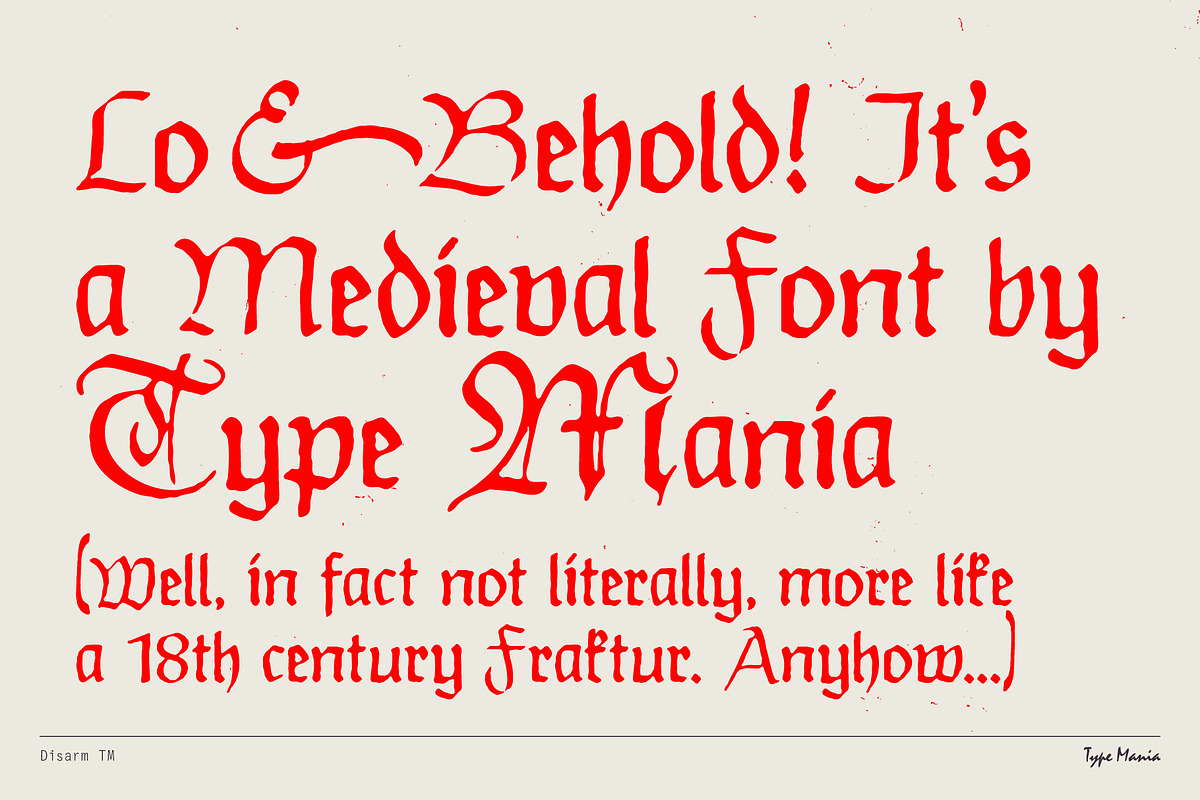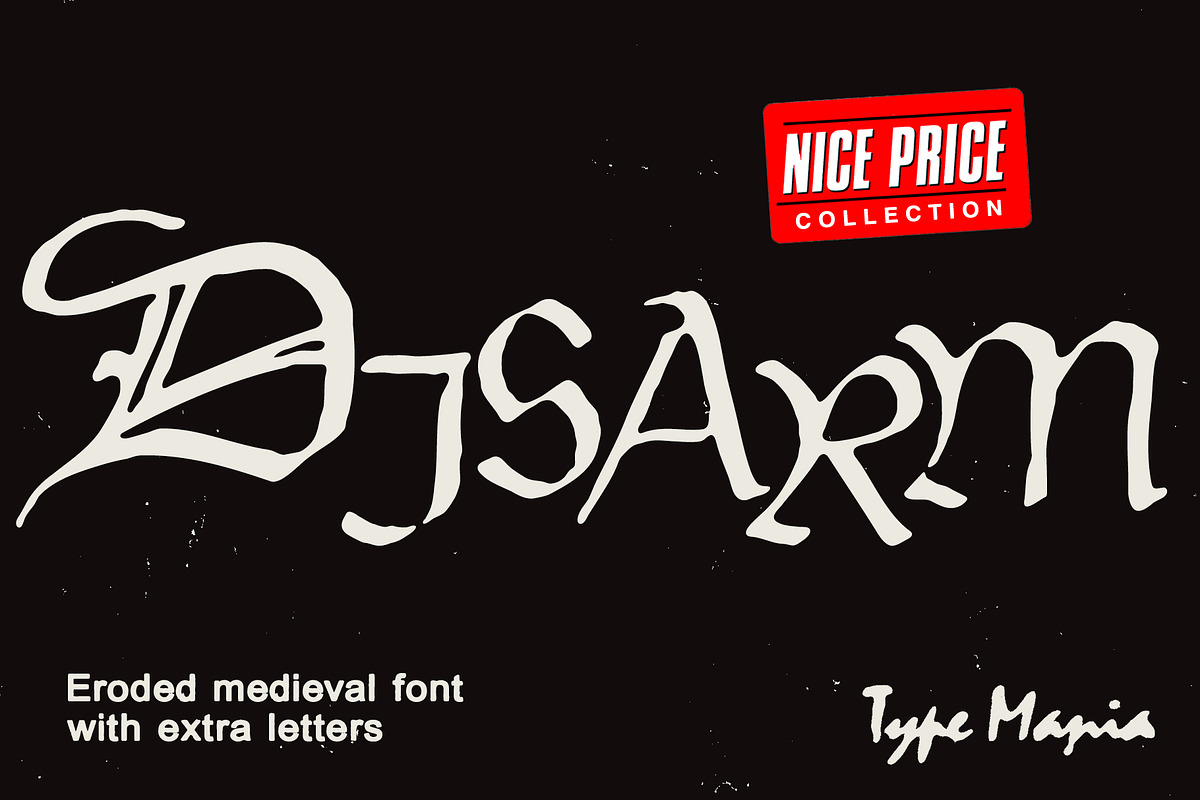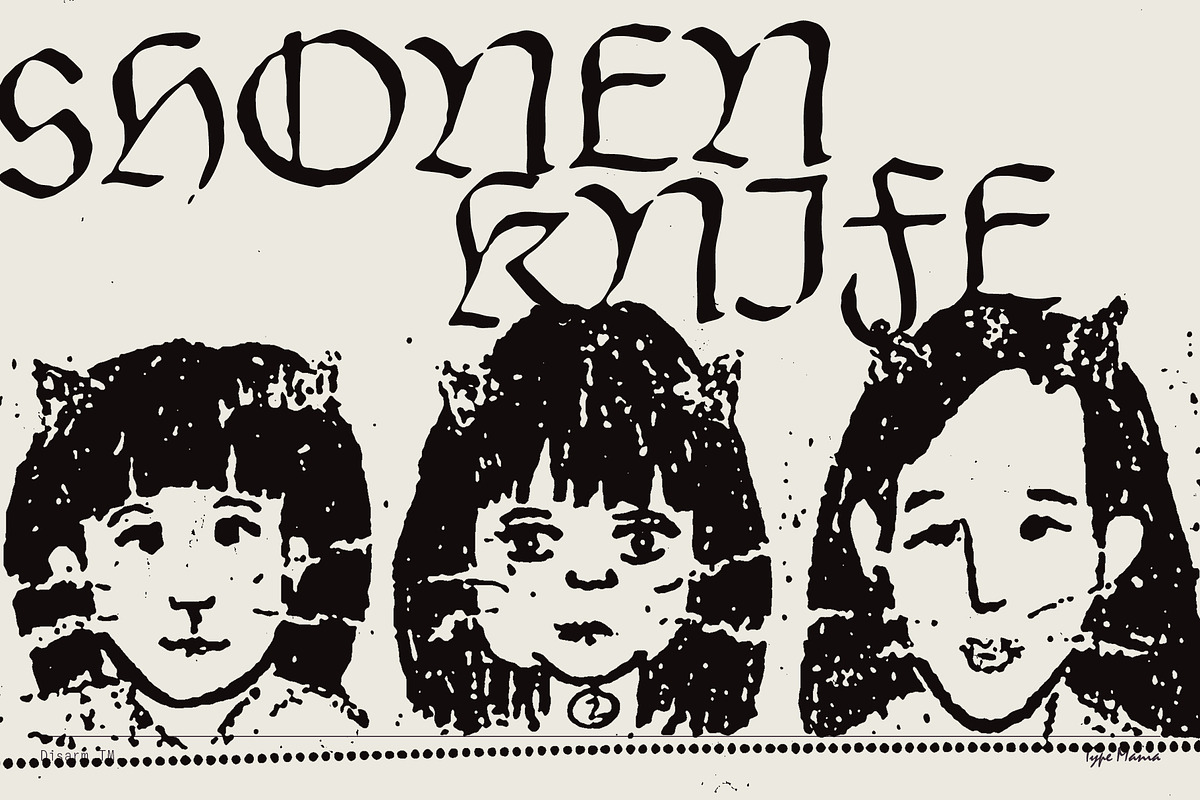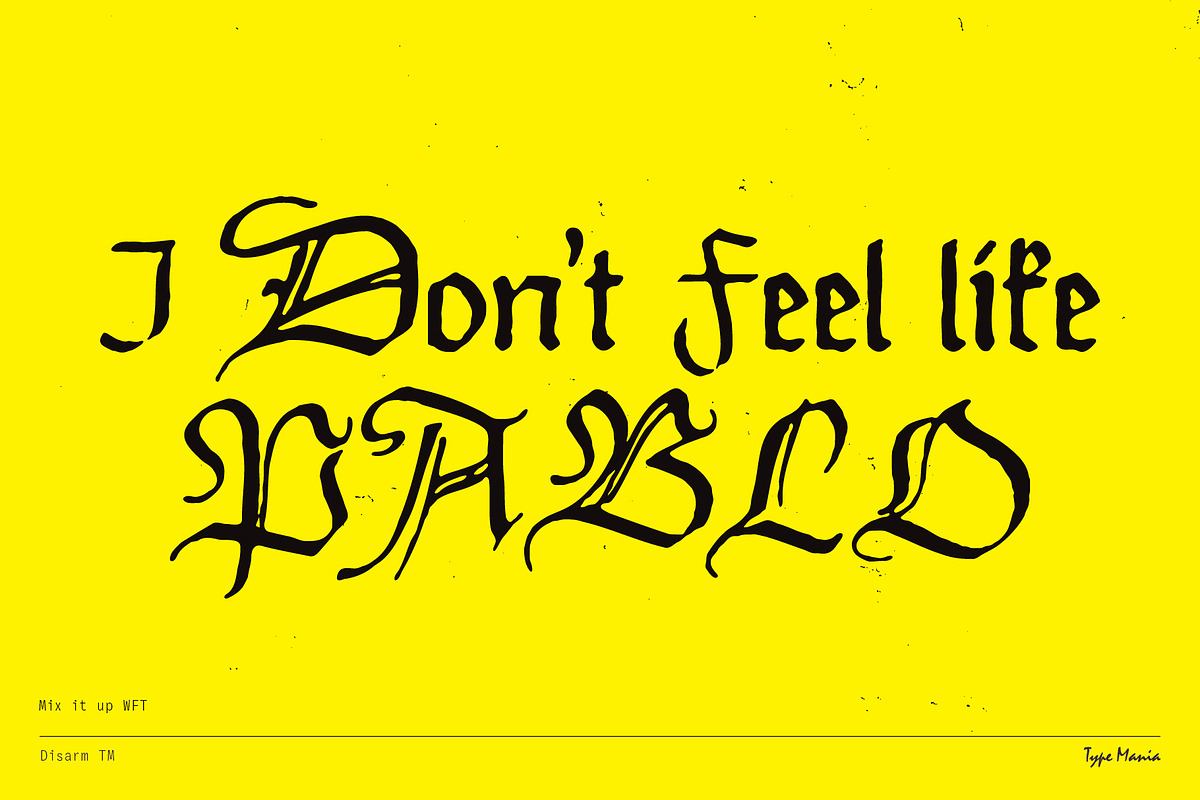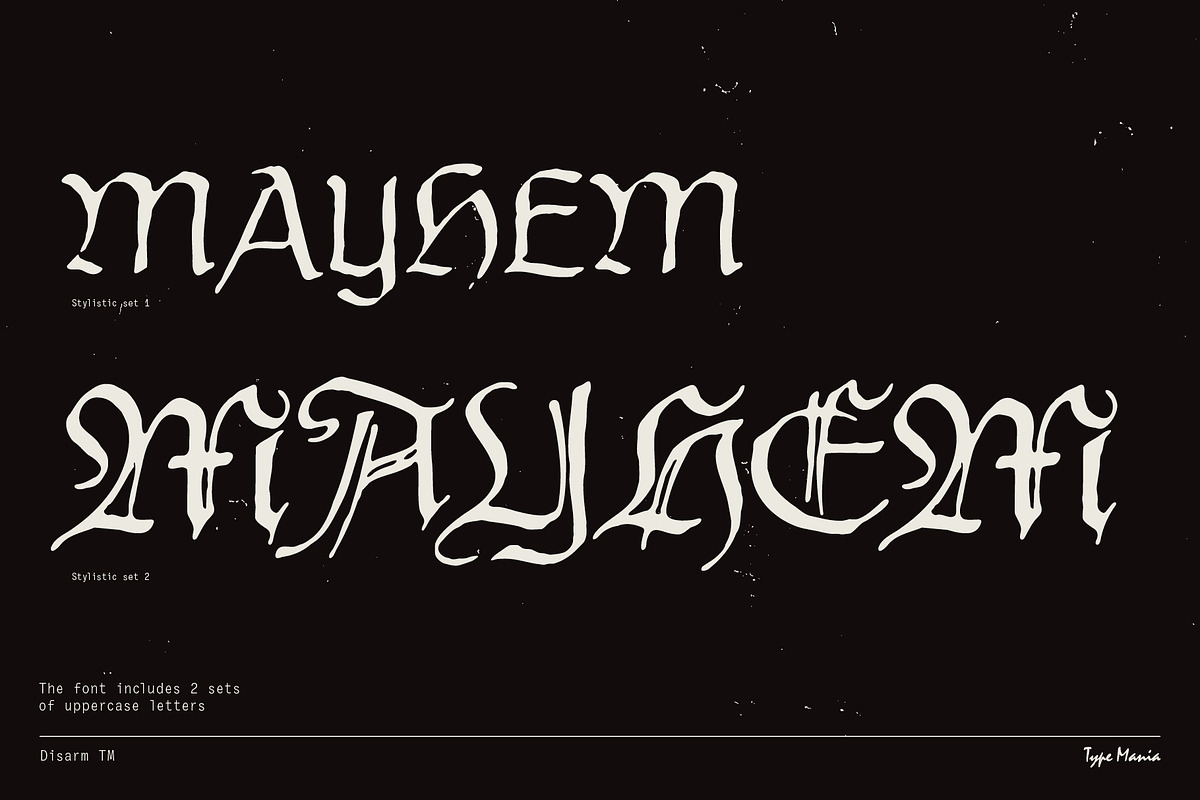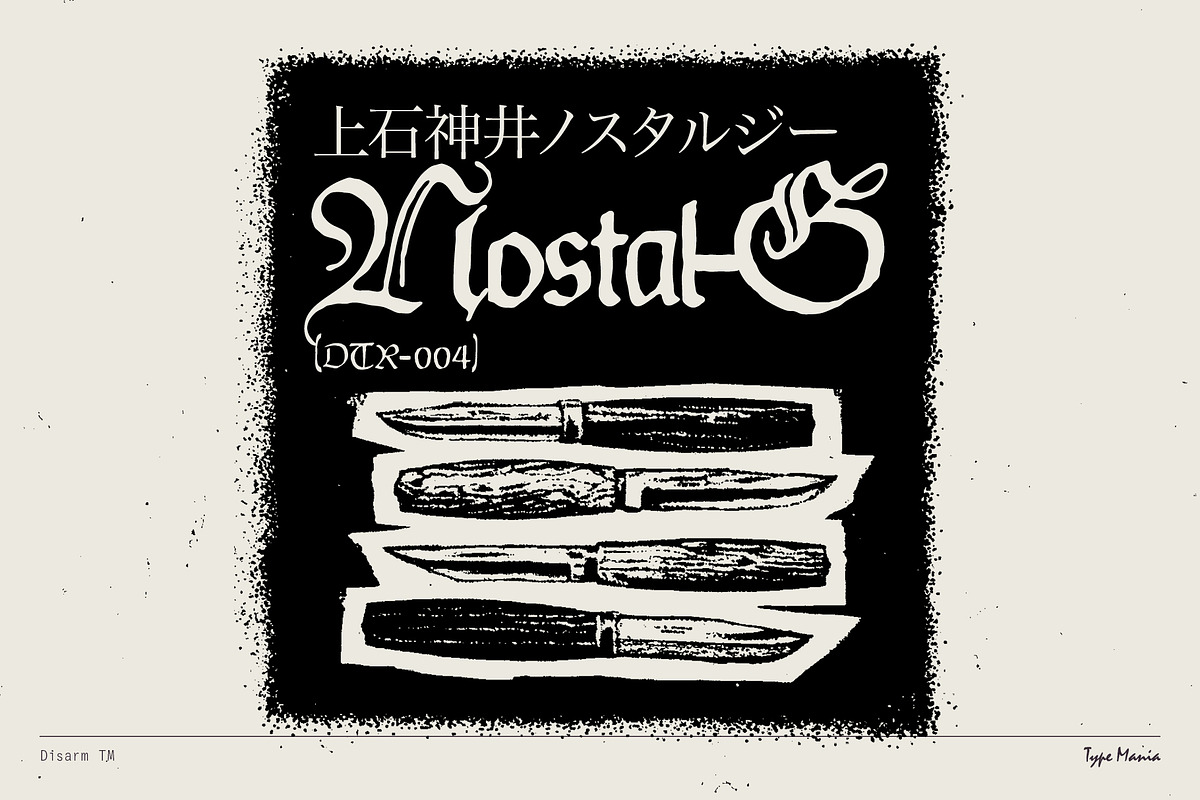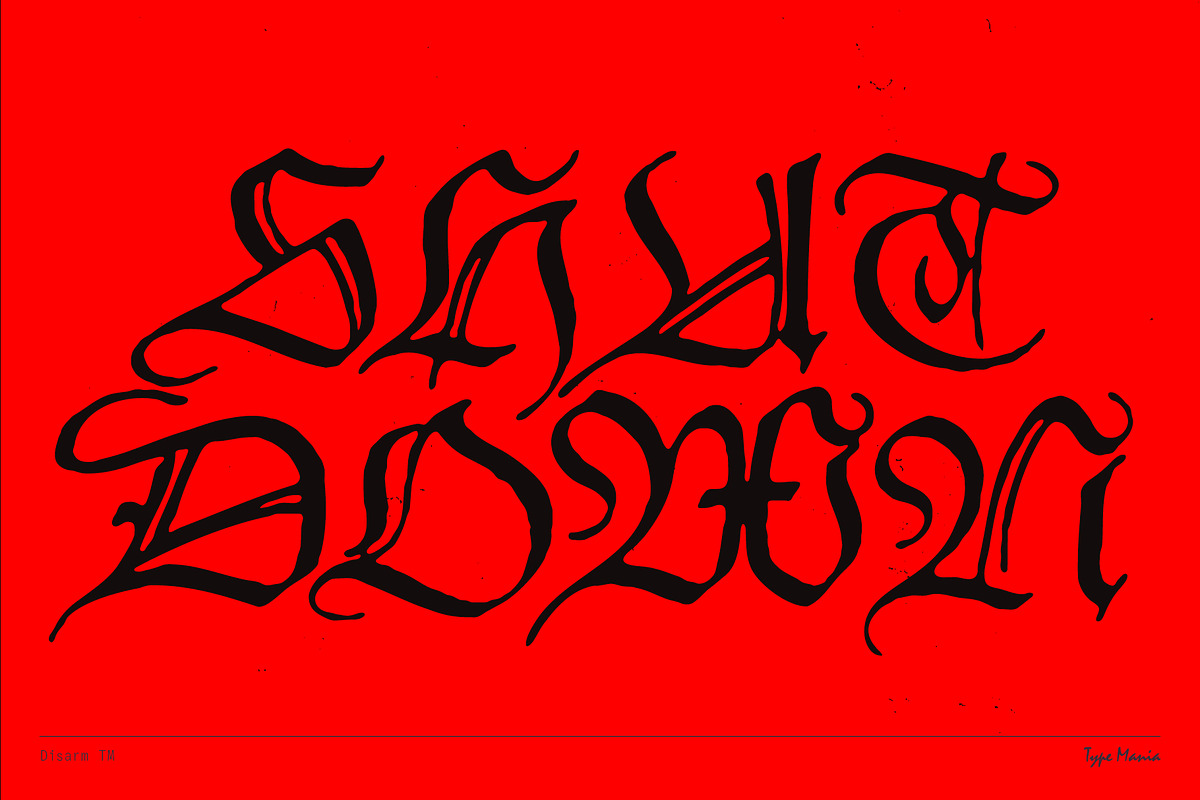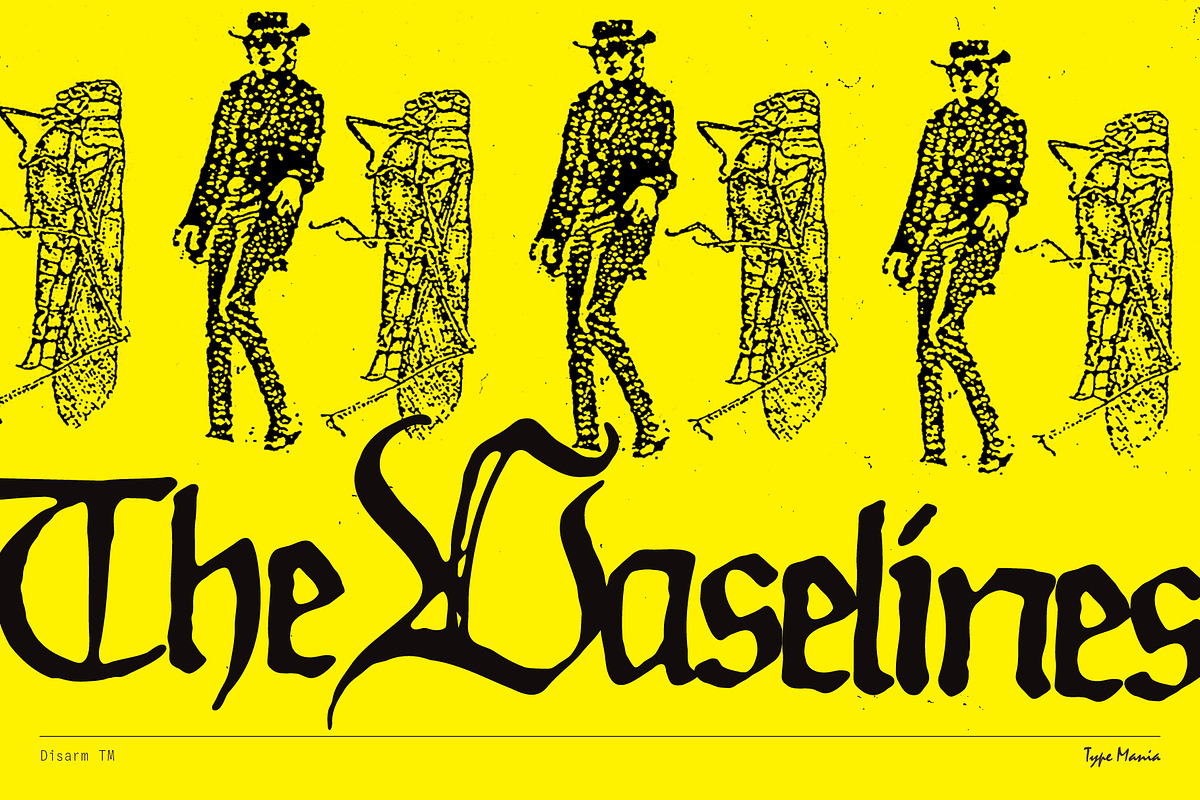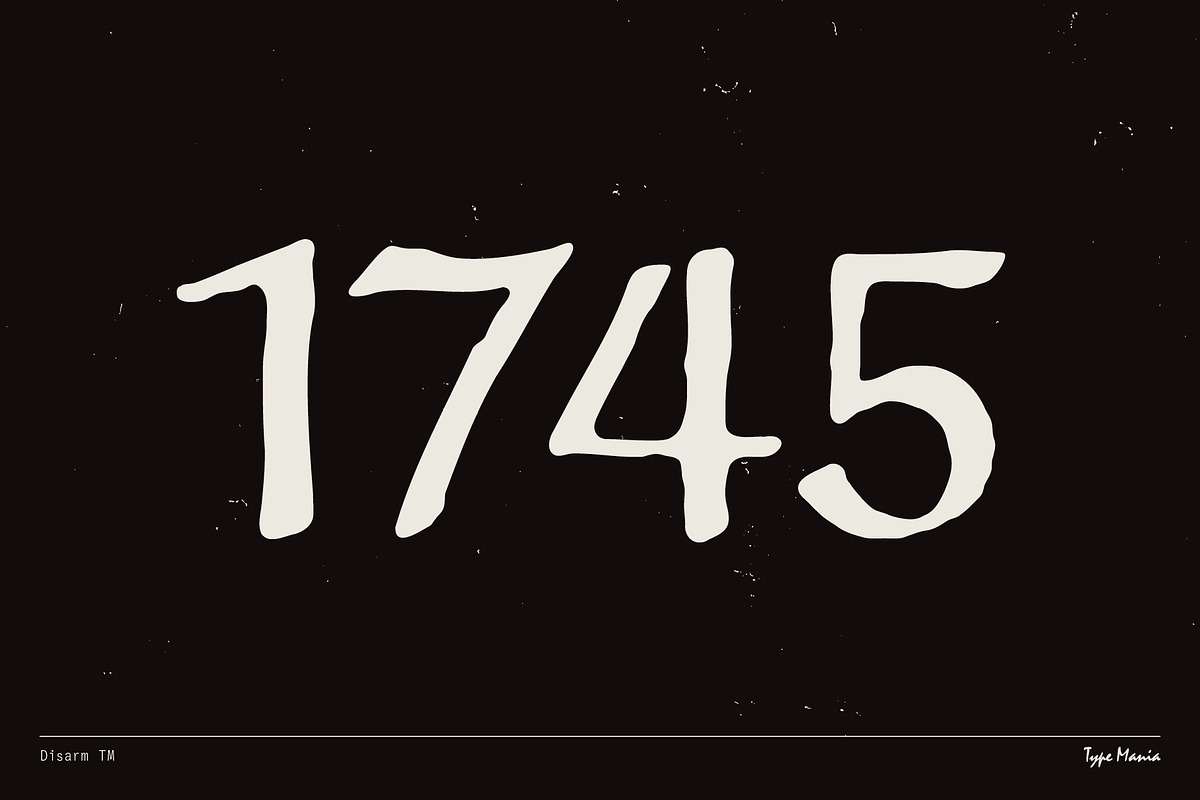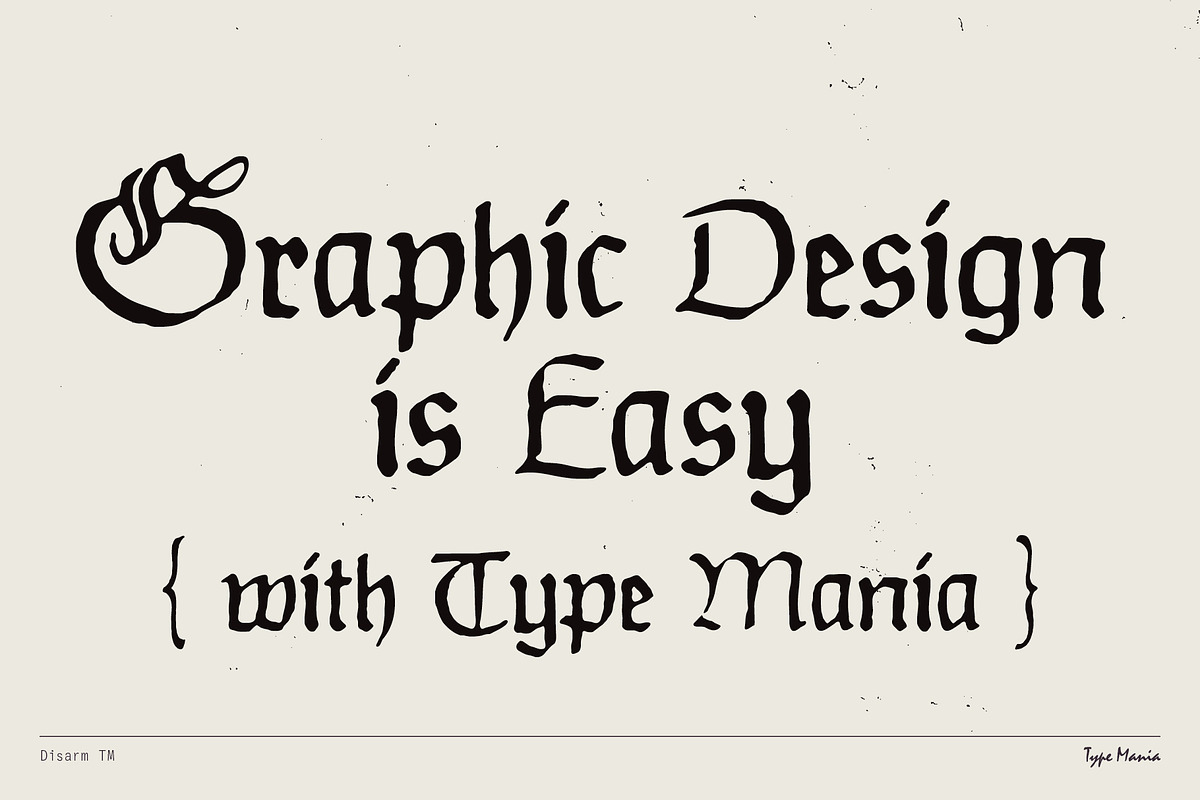
Disarm TM – Distressed Fraktur
Disarm TM – a Fraktur with irregular rhythm and distressed details. Limited languages, but alternative capital letters on Stylistic Set 2 🤝